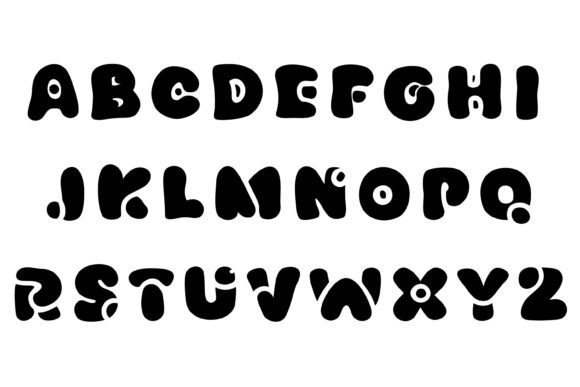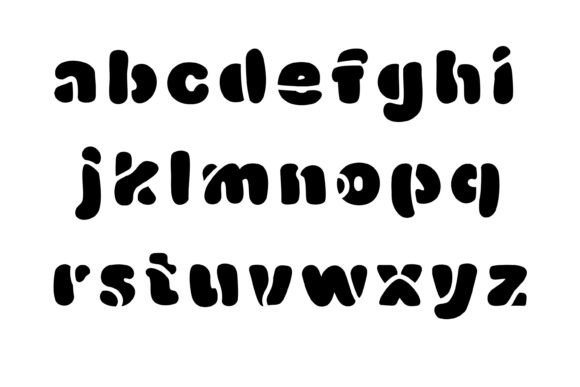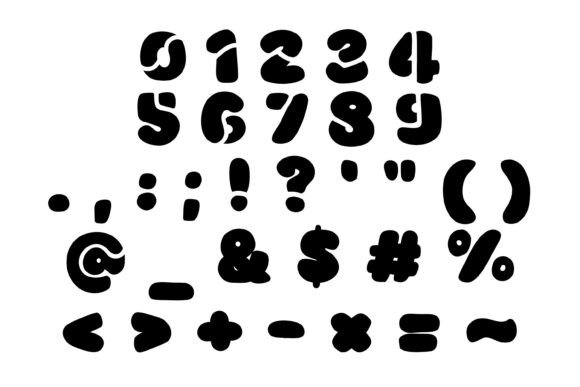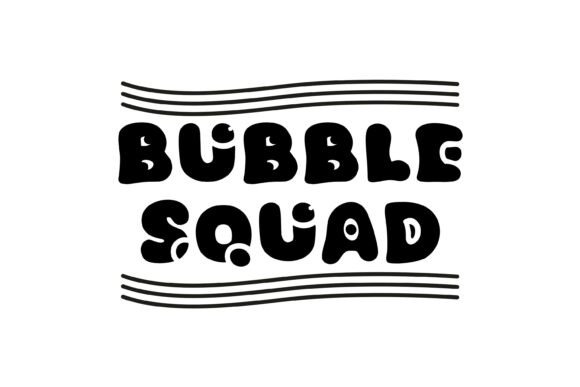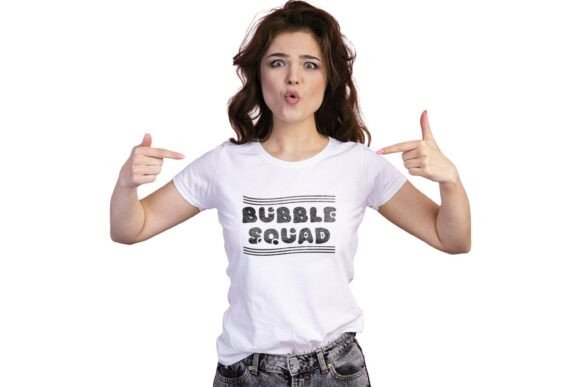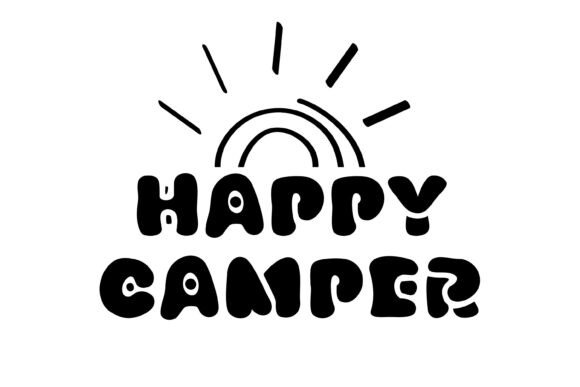
Do you ever get that excited feeling when you stumble upon the perfect font to bring your creative idea to life? Maybe it’s for a birthday party invitation, a logo for a new business, or a fun sticker design for your kids’ room. Whatever the project, finding the right font can make all the difference. For designers and crafty enthusiasts alike, the search for that perfect font can be a thrilling adventure.
Enter Goop Pop Font, a delightful chunky font designed specifically for playful and fun designs. With its rounded shapes and cute cut-ins, Goop Pop Font is perfect for stickers, kids’ posters, birthday invites, logos, labels, and even Cricut/Silhouette crafts. As a designer, you’ll appreciate the versatility and value of this font, which comes in both OTF and TTF formats, complete with full uppercase, lowercase, numbers, and symbols.
Goop Pop Font Key Features
- Font Family: Goop Pop is a sans-serif font family designed for modern and playful applications.
- Character Set: The font family includes a wide range of characters, including uppercase and lowercase letters, numbers, and punctuation marks.
- Size: Goop Pop is available in 5 different font weights: Thin, Light, Regular, Medium, and Bold, offering flexibility in design applications.
- Unique Characteristics: Goop Pop features a distinctive rounded shape and geometric elements, making it ideal for creative and playful designs, such as logos, branding materials, and packaging.
Designer Review: Goop Pop Font
Overall, I think the Goop Pop Font is a fun and playful addition to any design project. It’s got a lot of personality and is perfect for use in headings or titles where you want to add some extra flair.
- ✨ Unique and quirky character set: The Goop Pop Font has a lot of character and is sure to add some visual interest to your designs.
- ✨ Wide range of applications: This font is versatile and can be used in a variety of contexts, from branding and marketing materials to digital interfaces and social media graphics.
- ✨ Easy to read: Despite its playful nature, the Goop Pop Font is surprisingly easy to read, making it a great choice for use in body copy or other areas where readability is a priority.
- ⚠️ Limited legibility at small sizes: While the Goop Pop Font is easy to read at larger sizes, it can start to break down and become less legible at smaller sizes, making it less suitable for use in areas where text needs to be displayed at a very small size.
- ⚠️ May not be suitable for formal or professional applications: The Goop Pop Font is a bit too playful and whimsical to use in formal or professional contexts, so it’s best to save it for more creative or casual projects.
Overall, I think the Goop Pop Font is a great choice for designers who want to add a bit of personality and whimsy to their projects. Just be mindful of its limitations and use it in areas where it will shine.
The Goop Pop Font is ideal for adding a playful and whimsical touch to your designs. Use it for:
- Food and drink branding
- Any design that requires a fun and quirky feel
Remember to experiment with different font sizes and combinations to get the most out of the Goop Pop Font.